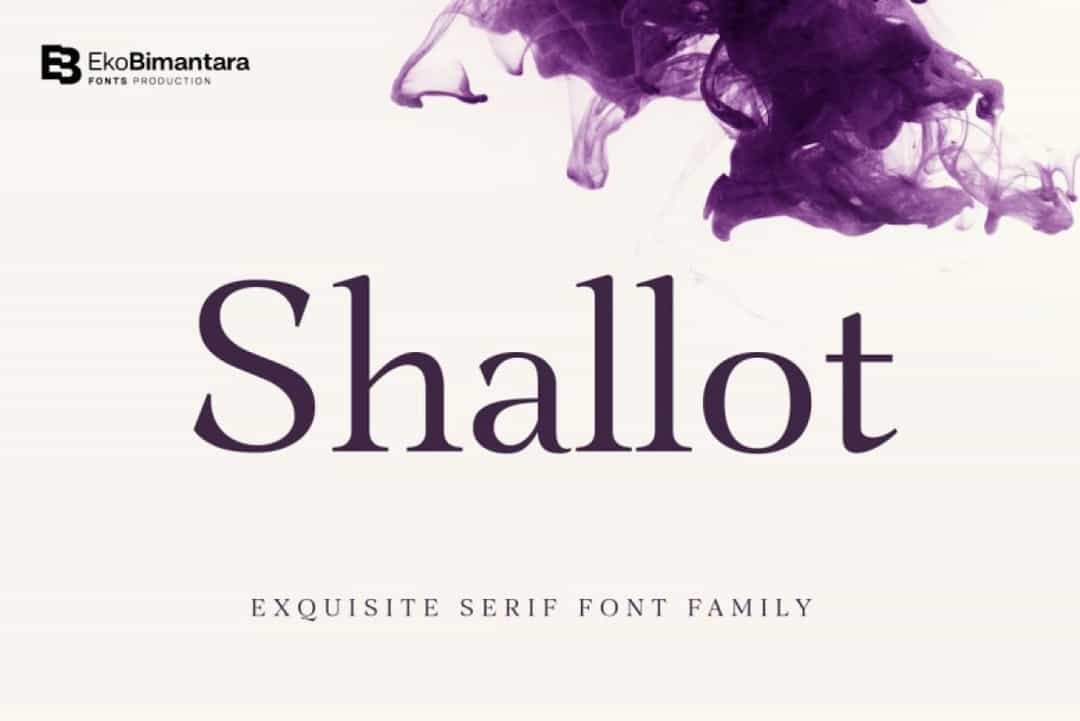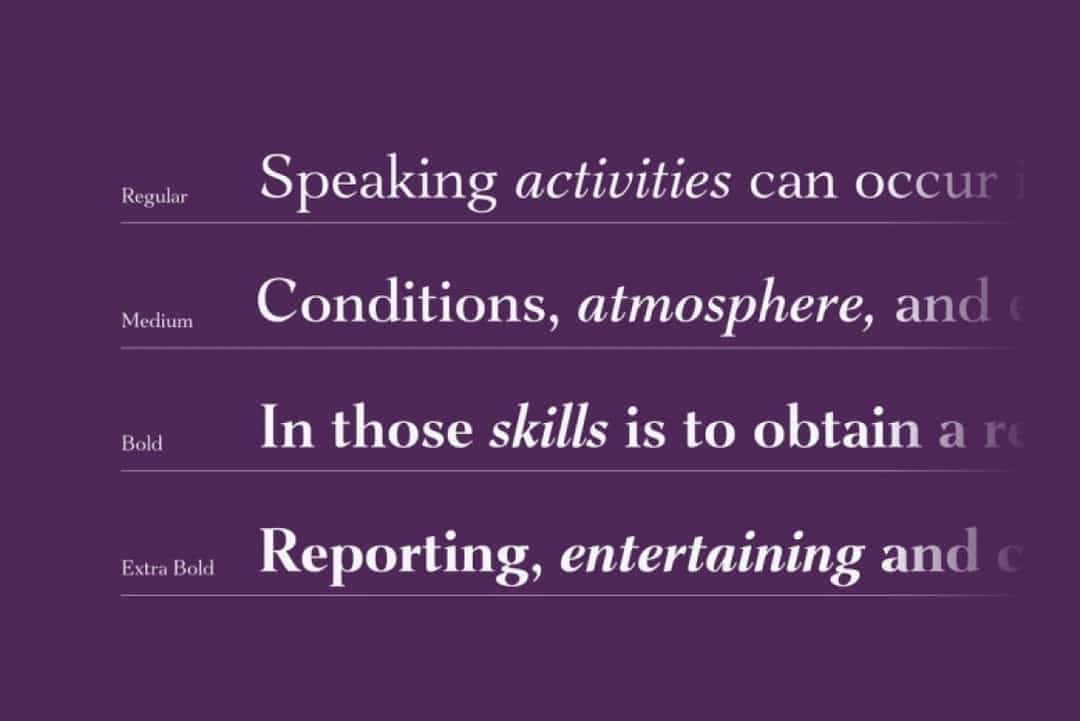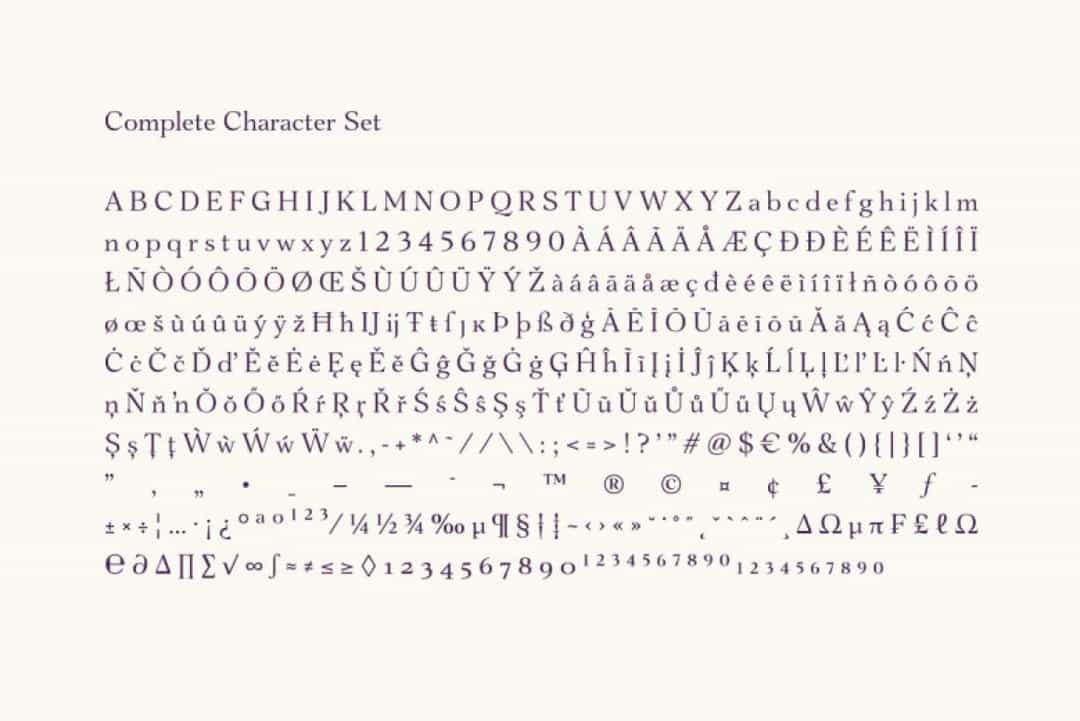
Shallot is a serif typeface family with sharp and elegant characteristics. Initialized letterforms do not entirely rely on calligraphic strokes, making Shallot more similar to transitional serif styles than others.